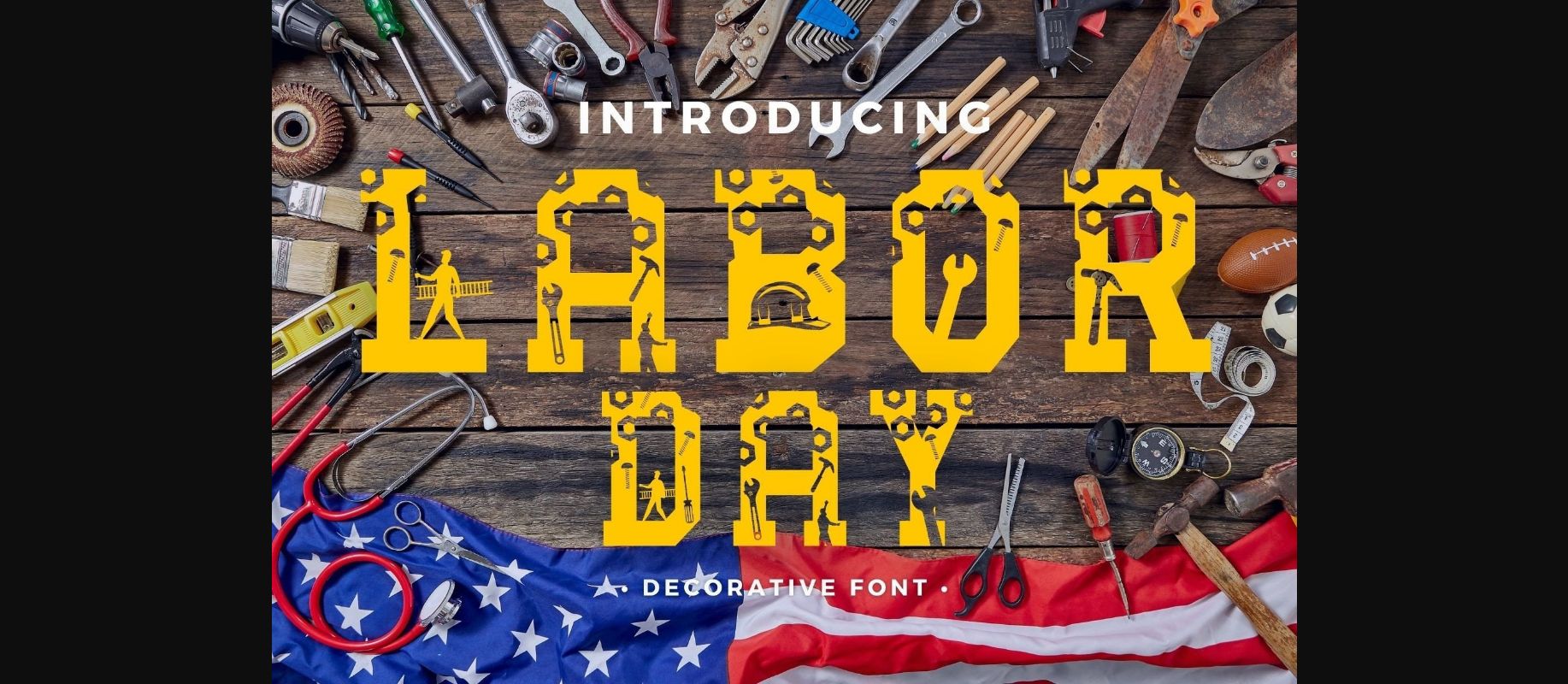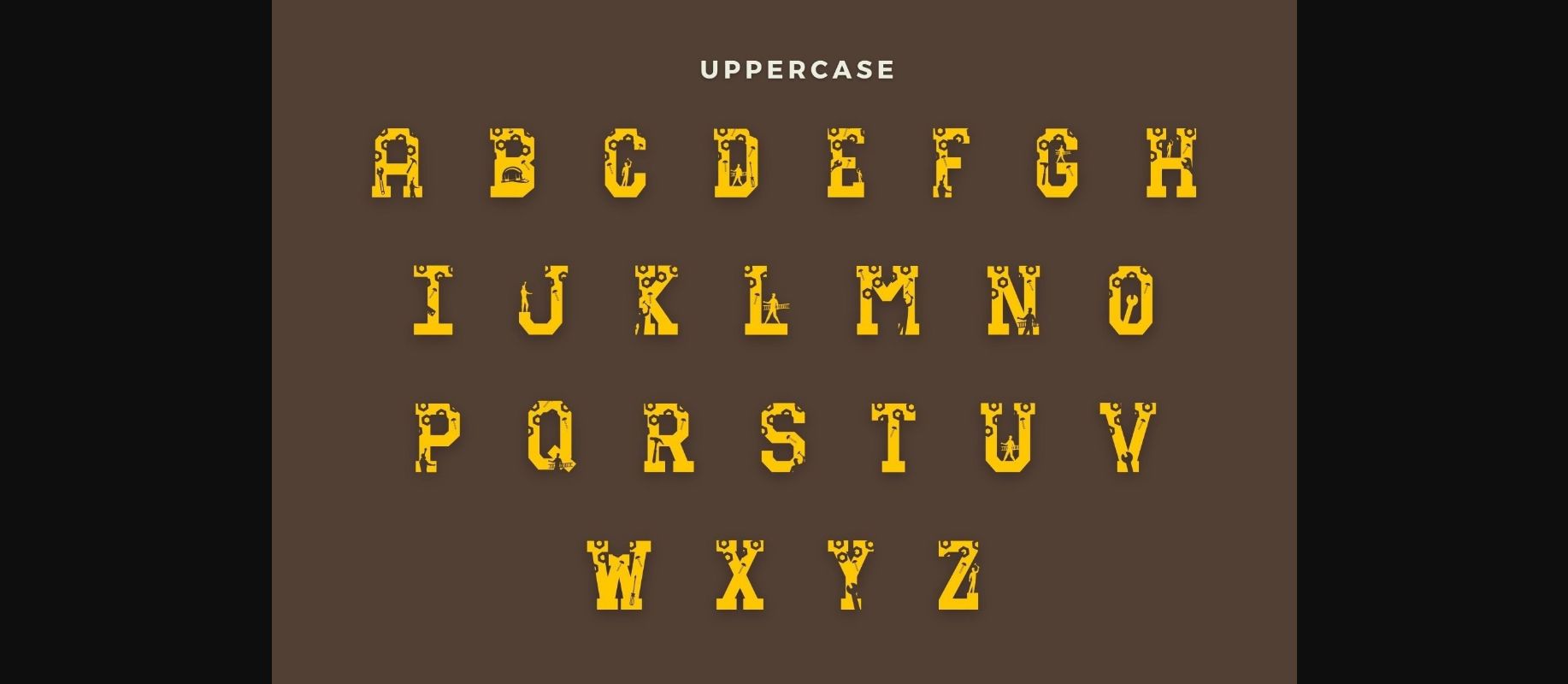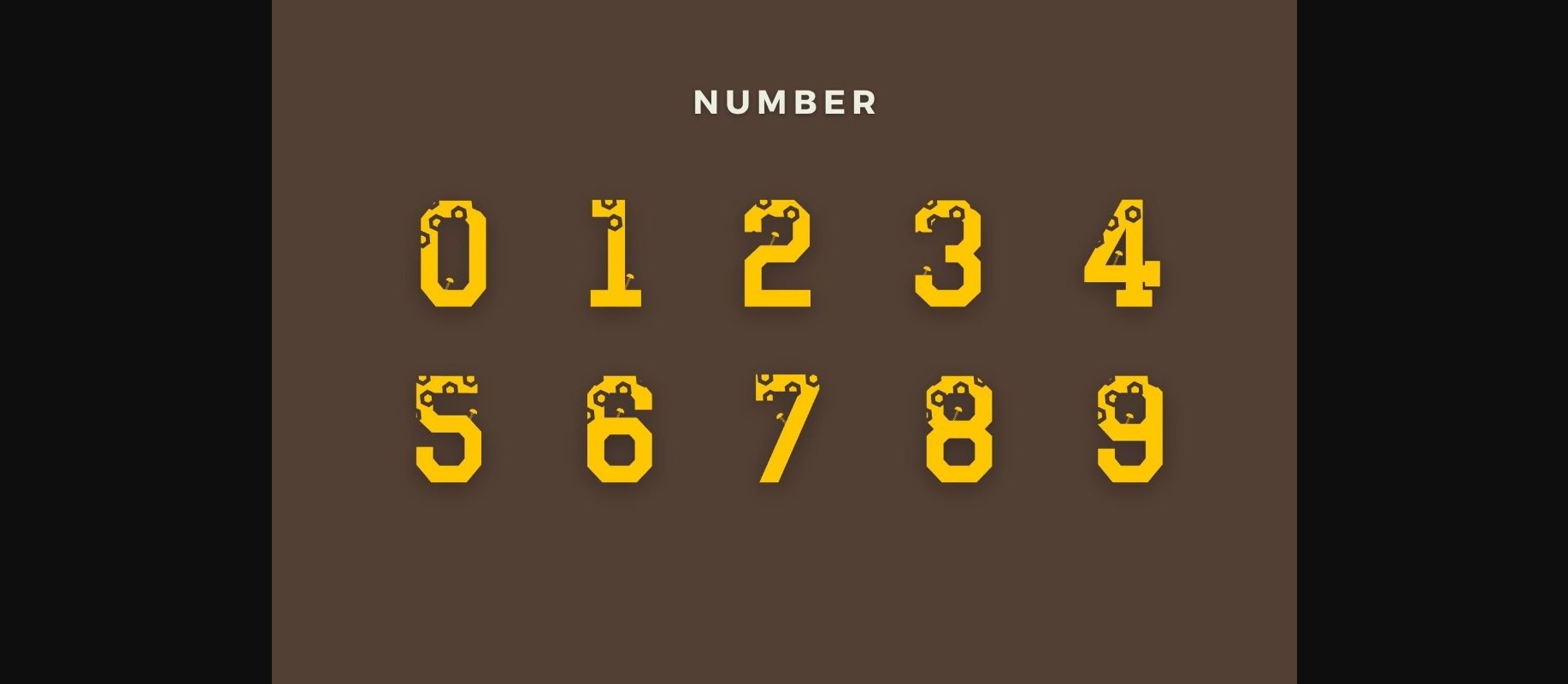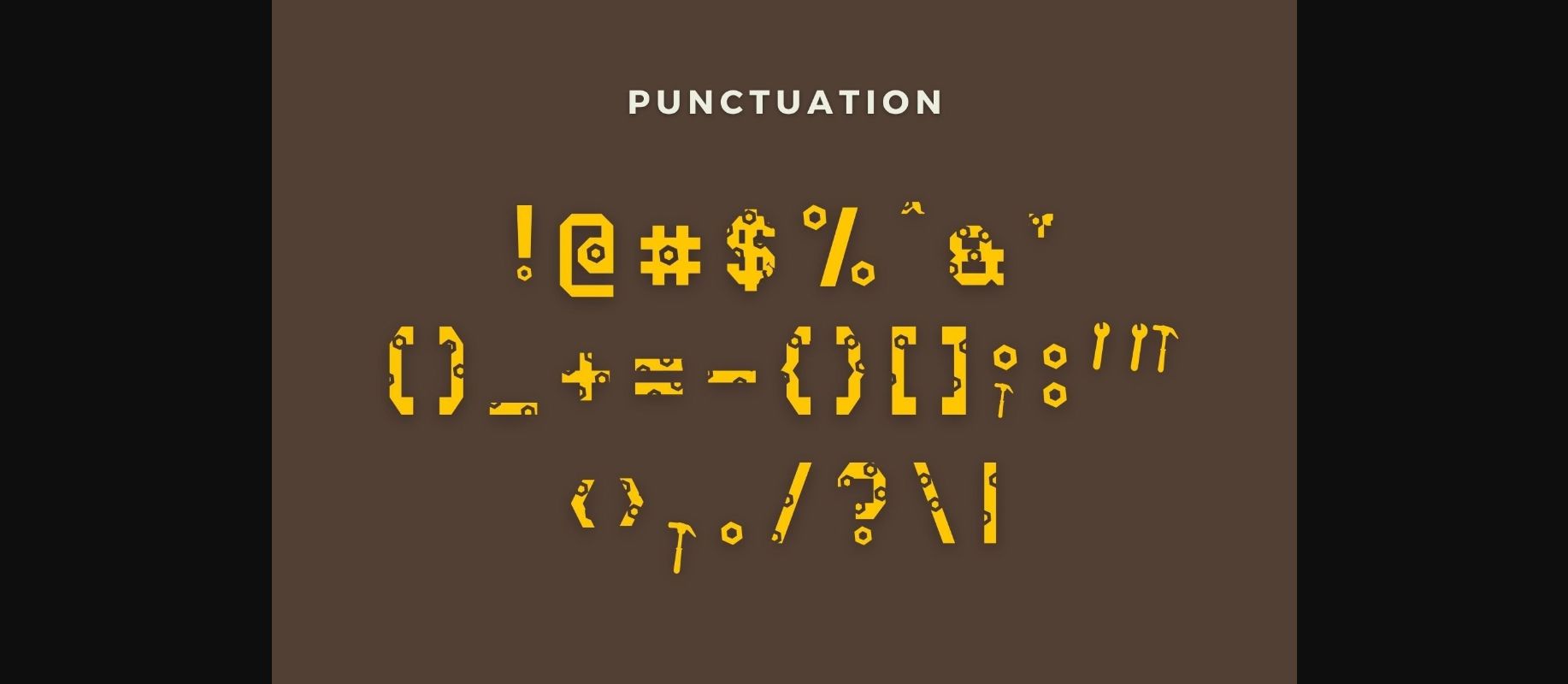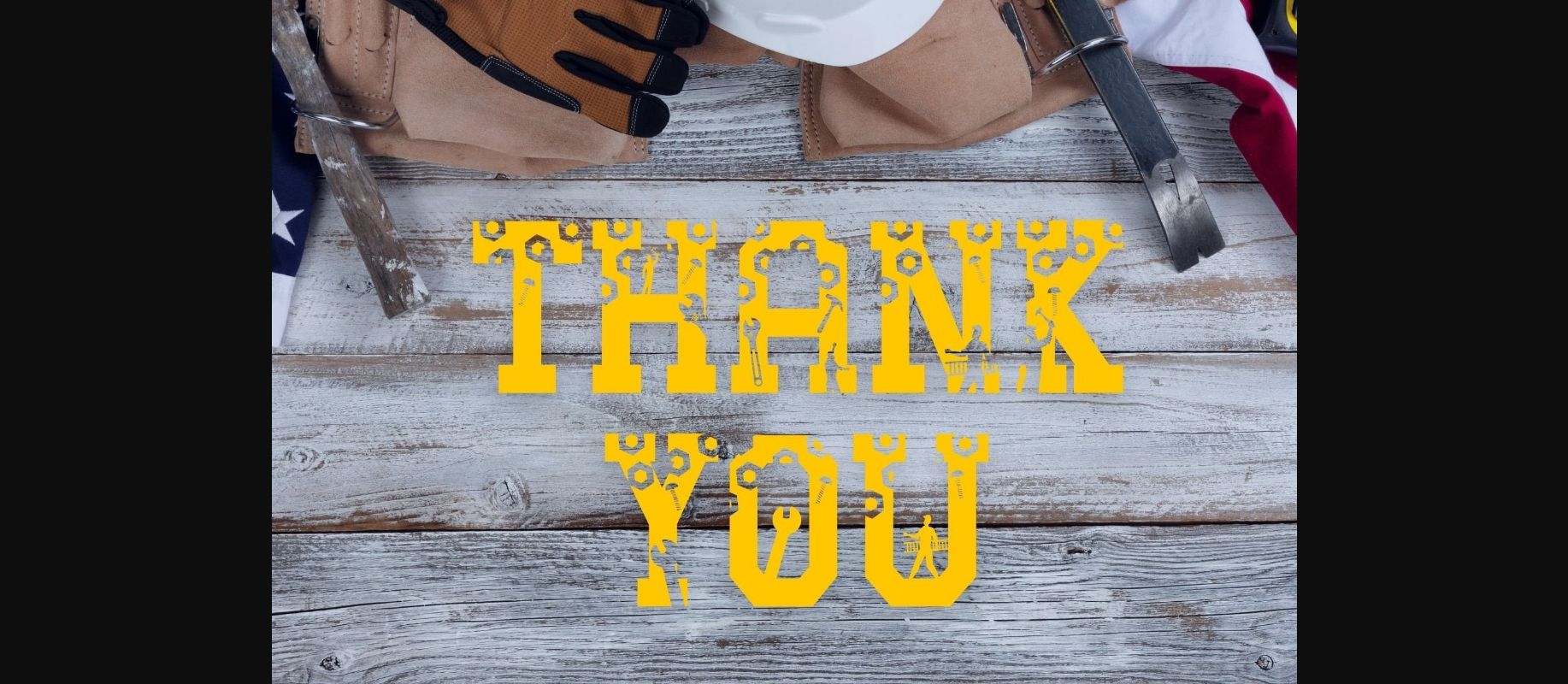
Labor Day Font
About Labor Day Font
Labor Day is a sporty decorative font. You can use it for logotypes, headlines, corporate identity, brand identity, apparel industry, posters, music, movies, games, magazines, books, comics, cartoons, YouTube, Instagram, websites, or any of your creative design projects.